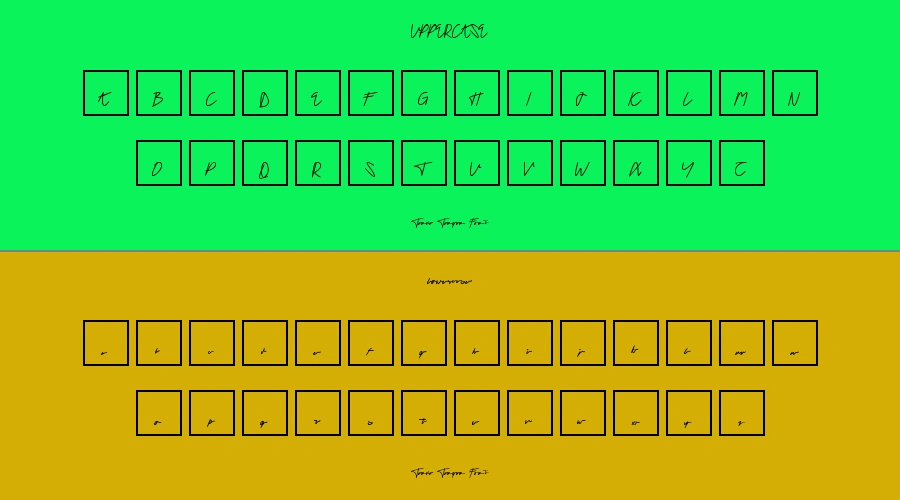
About Tanda Tangan Font
Tanda Tangan Font embodies typographic excellence through its masterful combination of teardrop terminals and accuracy. Created for annual reports, this typeface delivers exceptional reliability and application safety across all applications. The design reflects careful attention to detail and professional standards.
Advanced capabilities include distinctive ornamental caps and versatile technical characters, giving designers creative control. When used in featured quotes, Tanda Tangan Font exhibits remarkable hinting quality. The harmonious balance between curve radius and standards alignment sets this typeface apart.
Tanda Tangan Font |